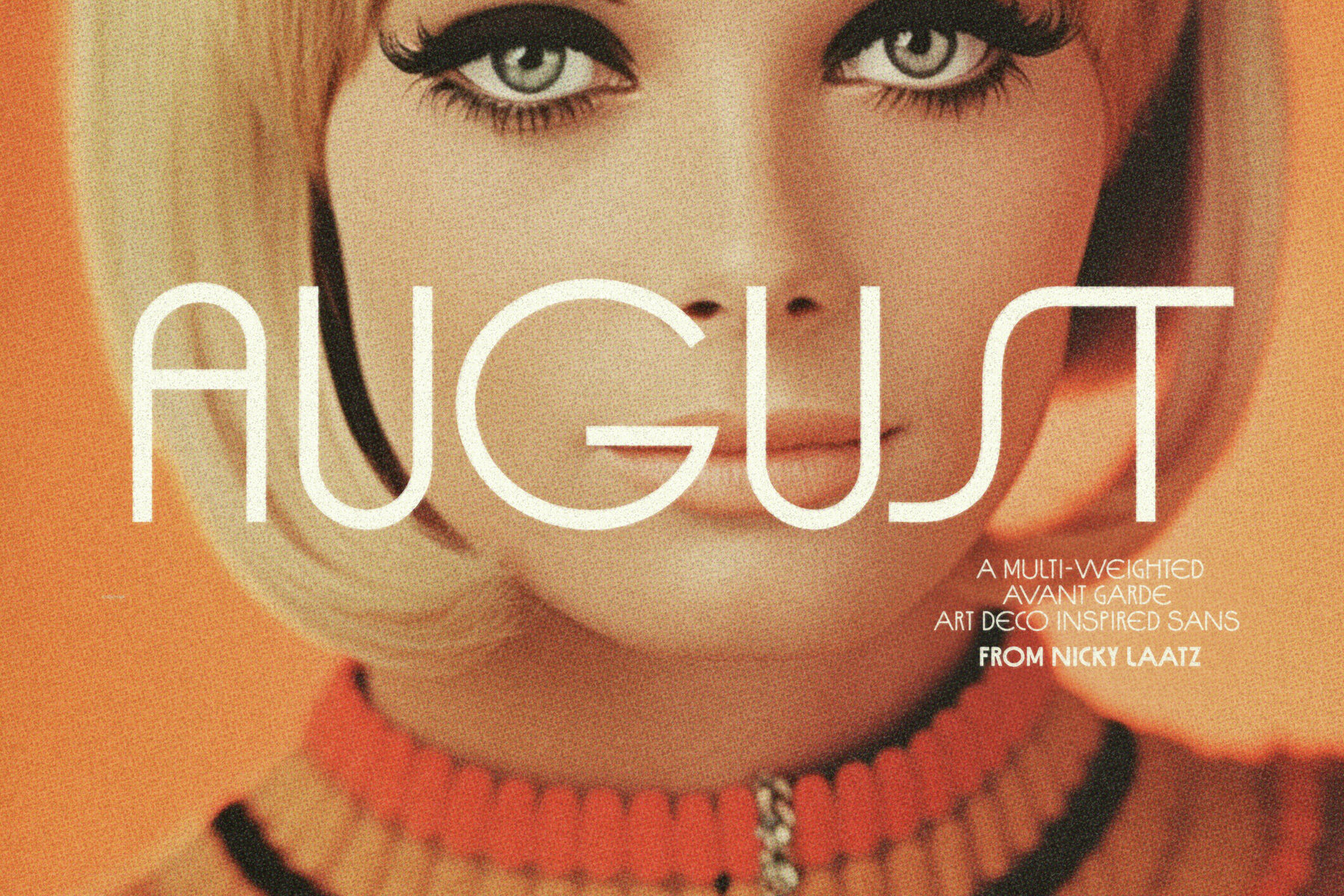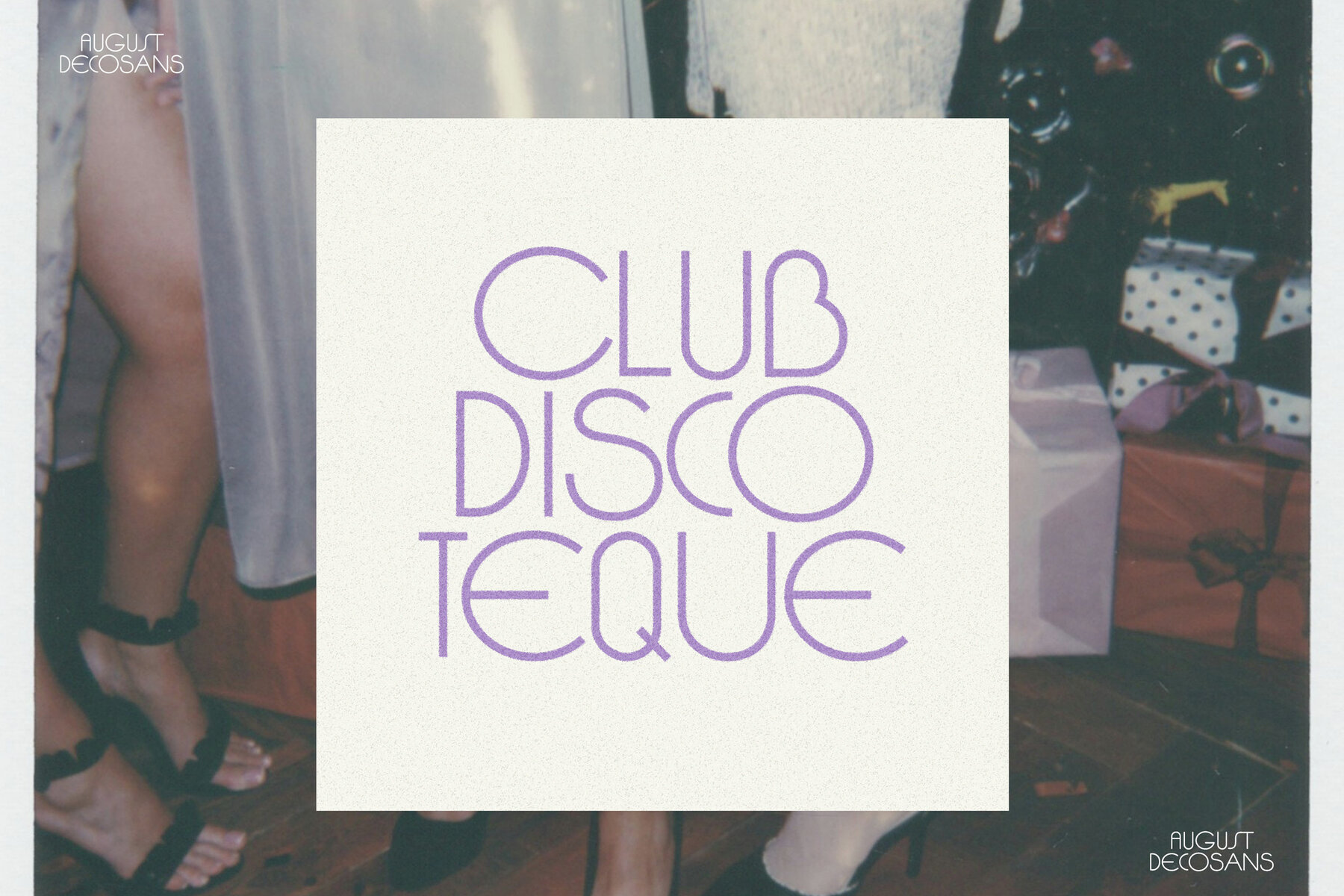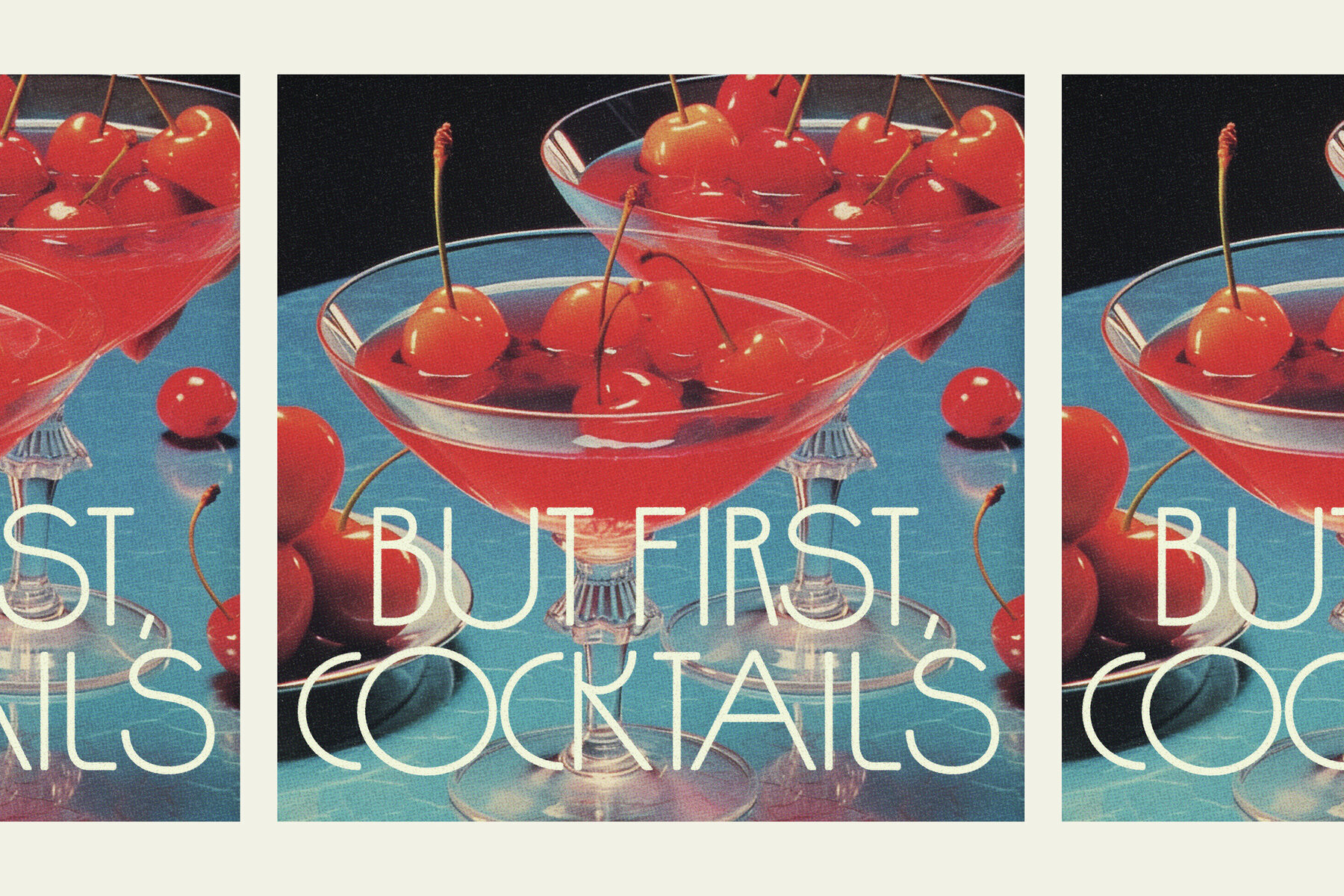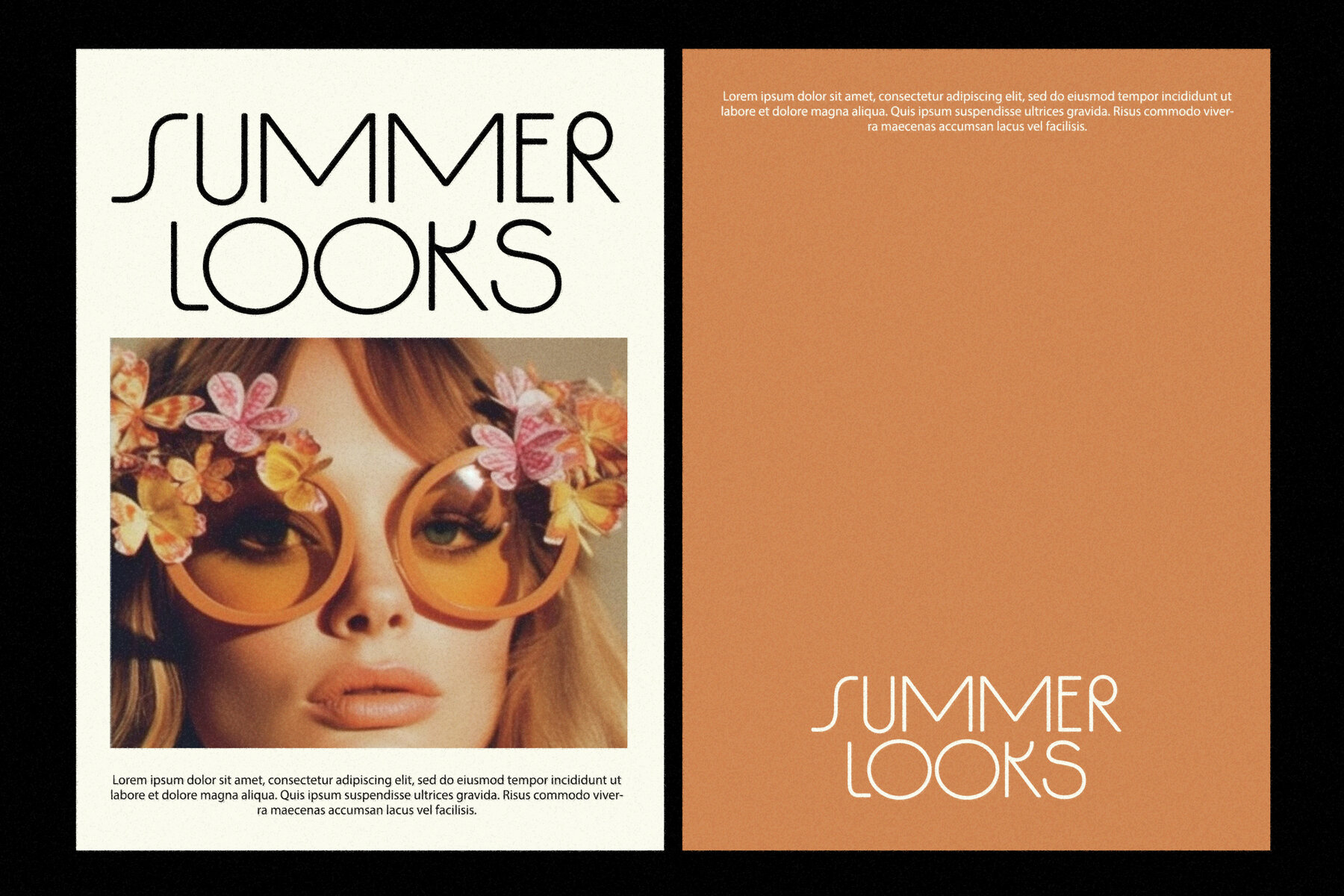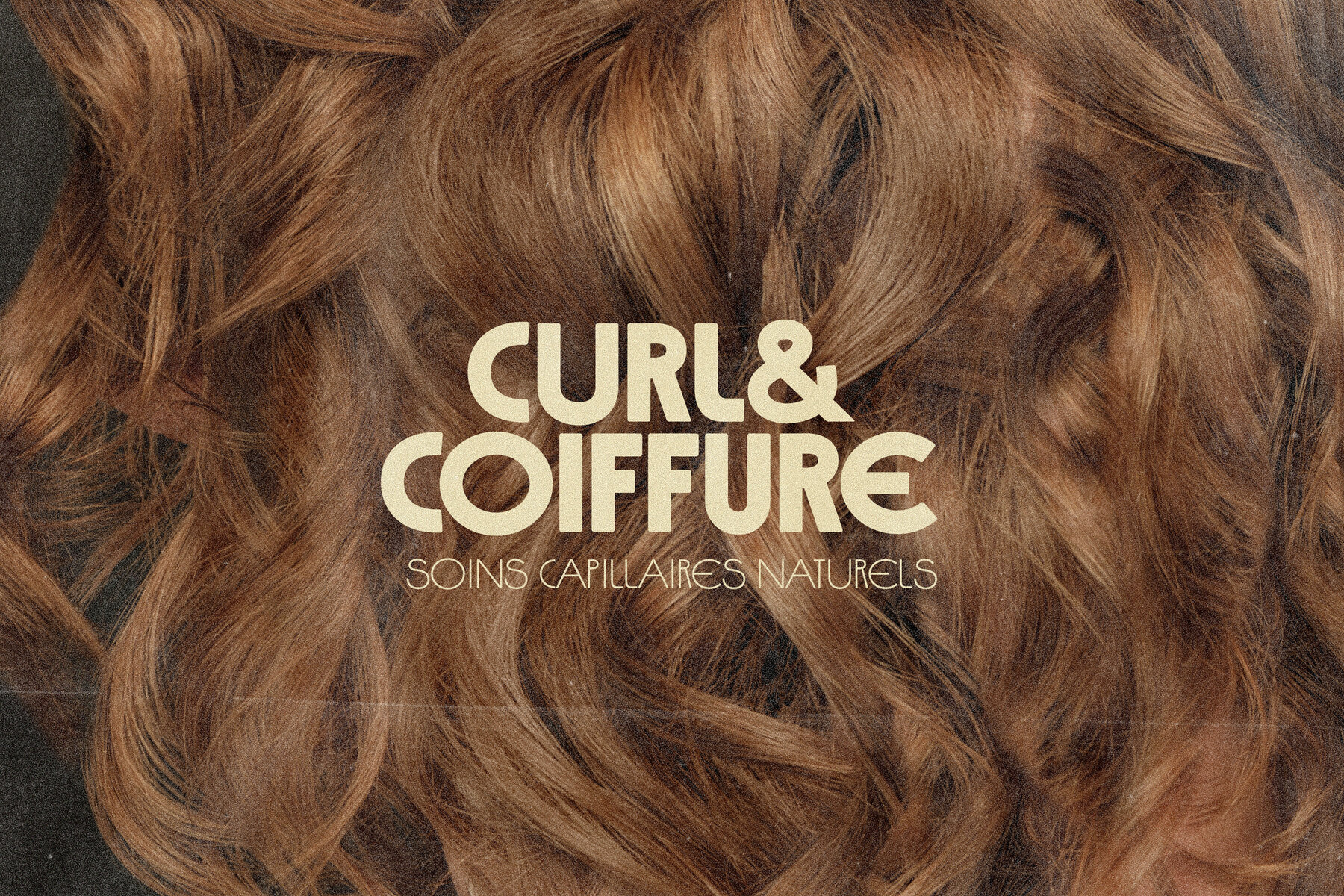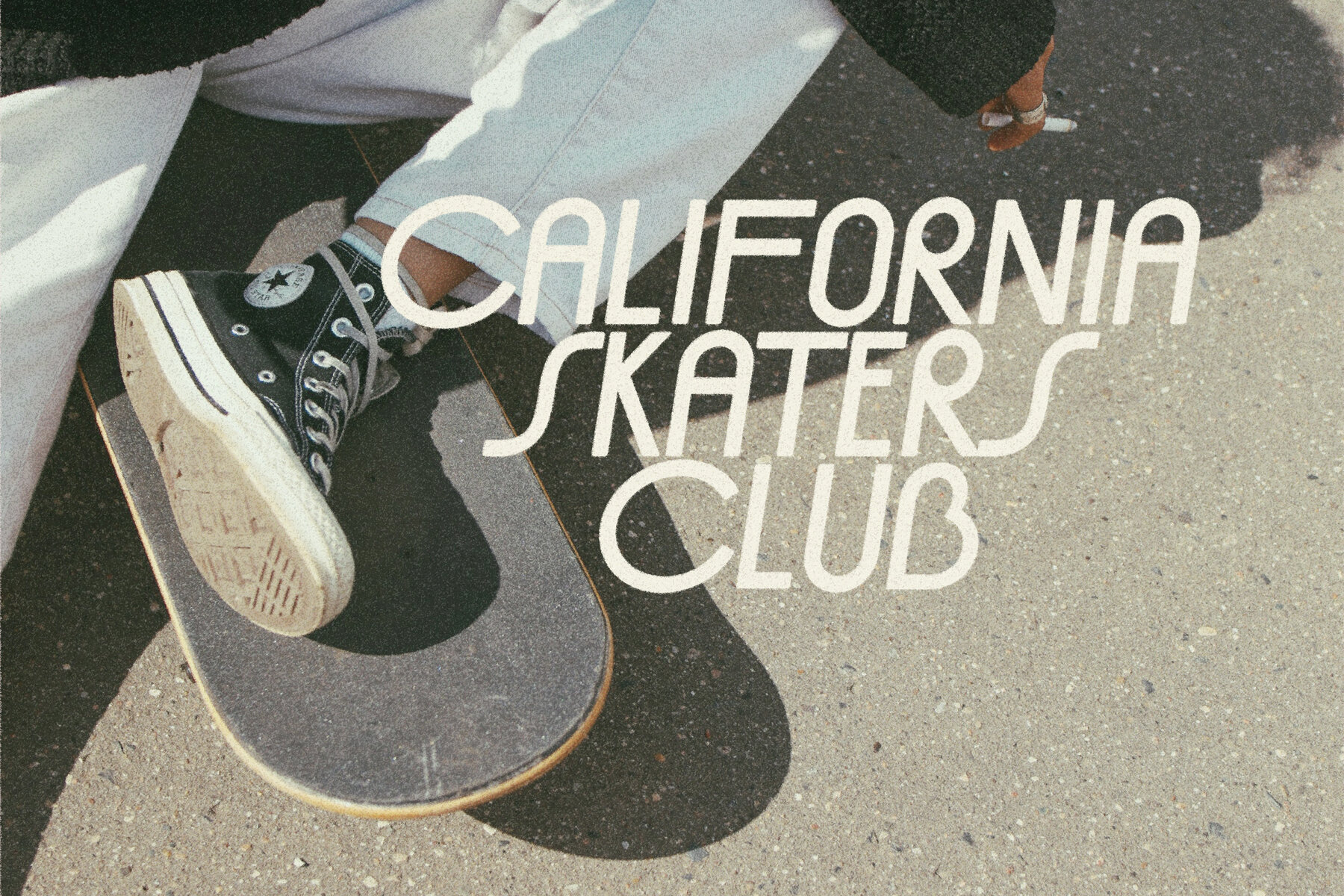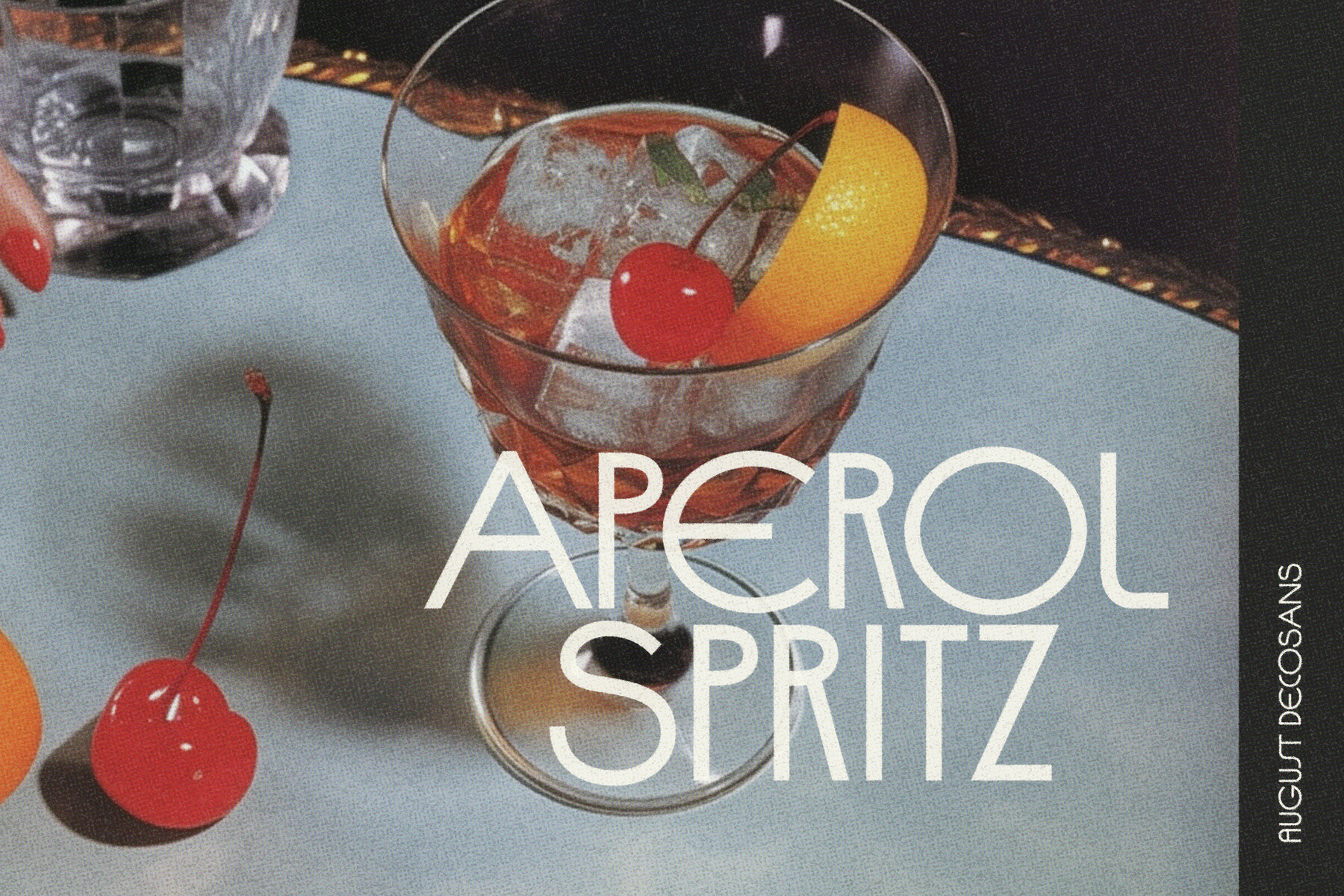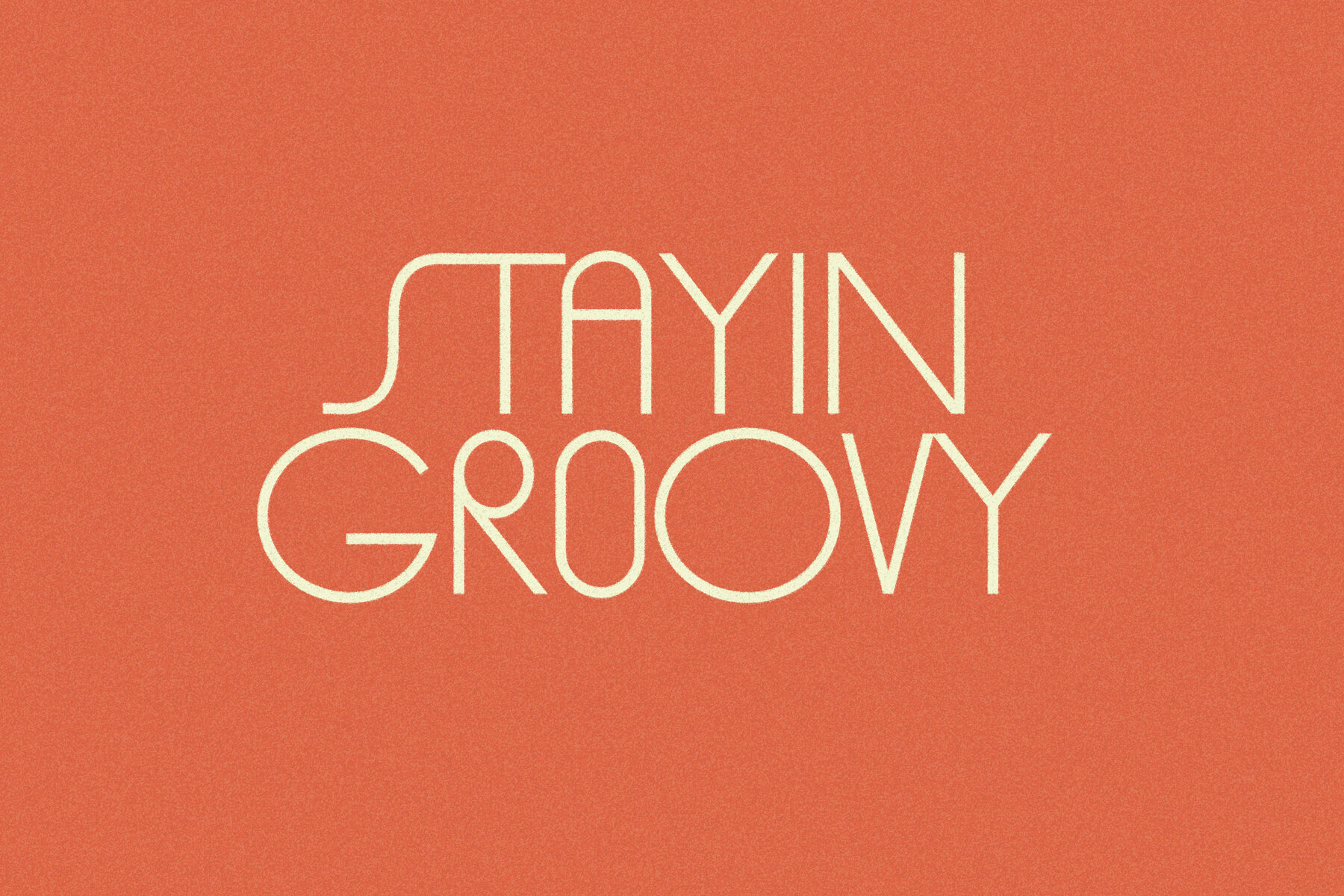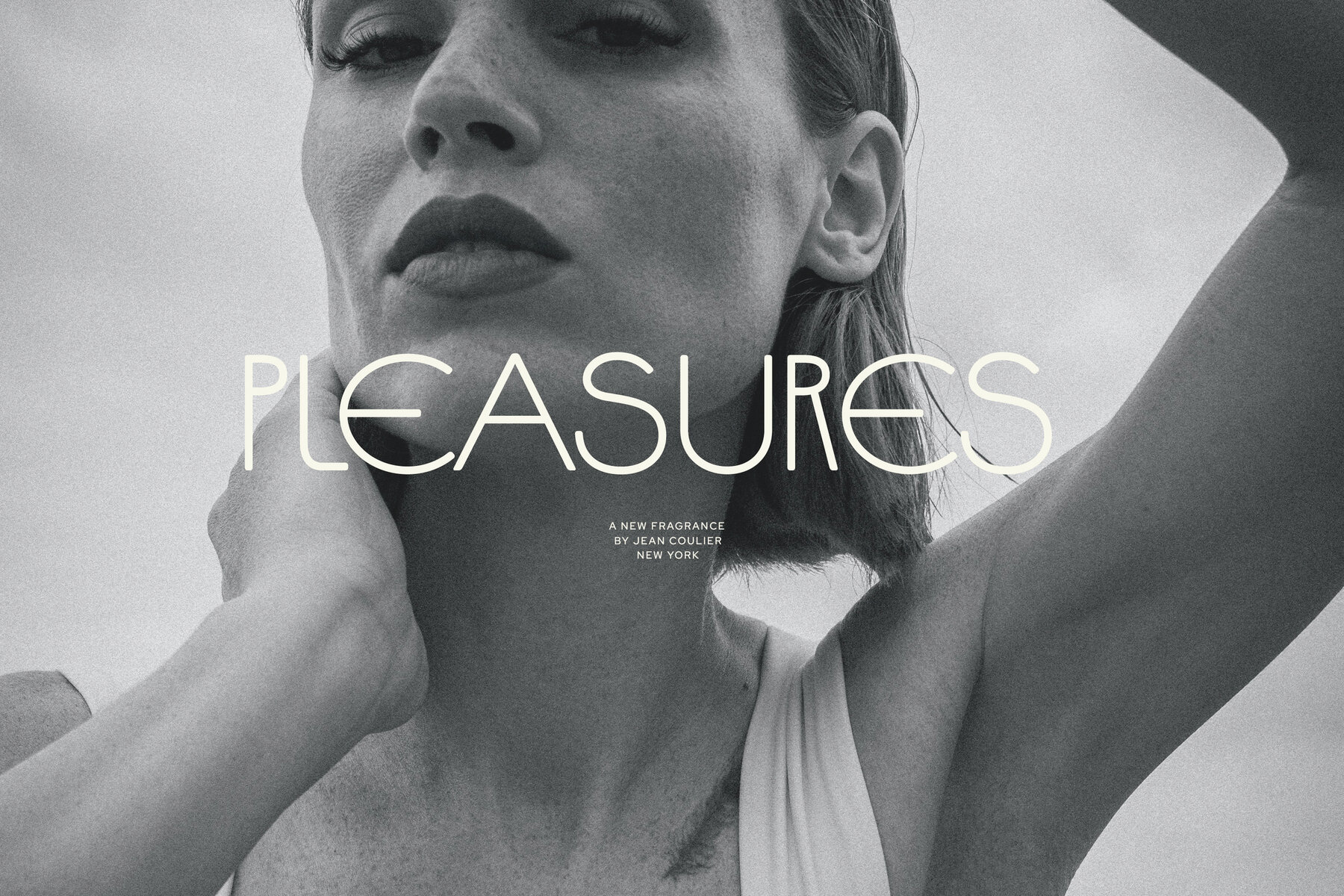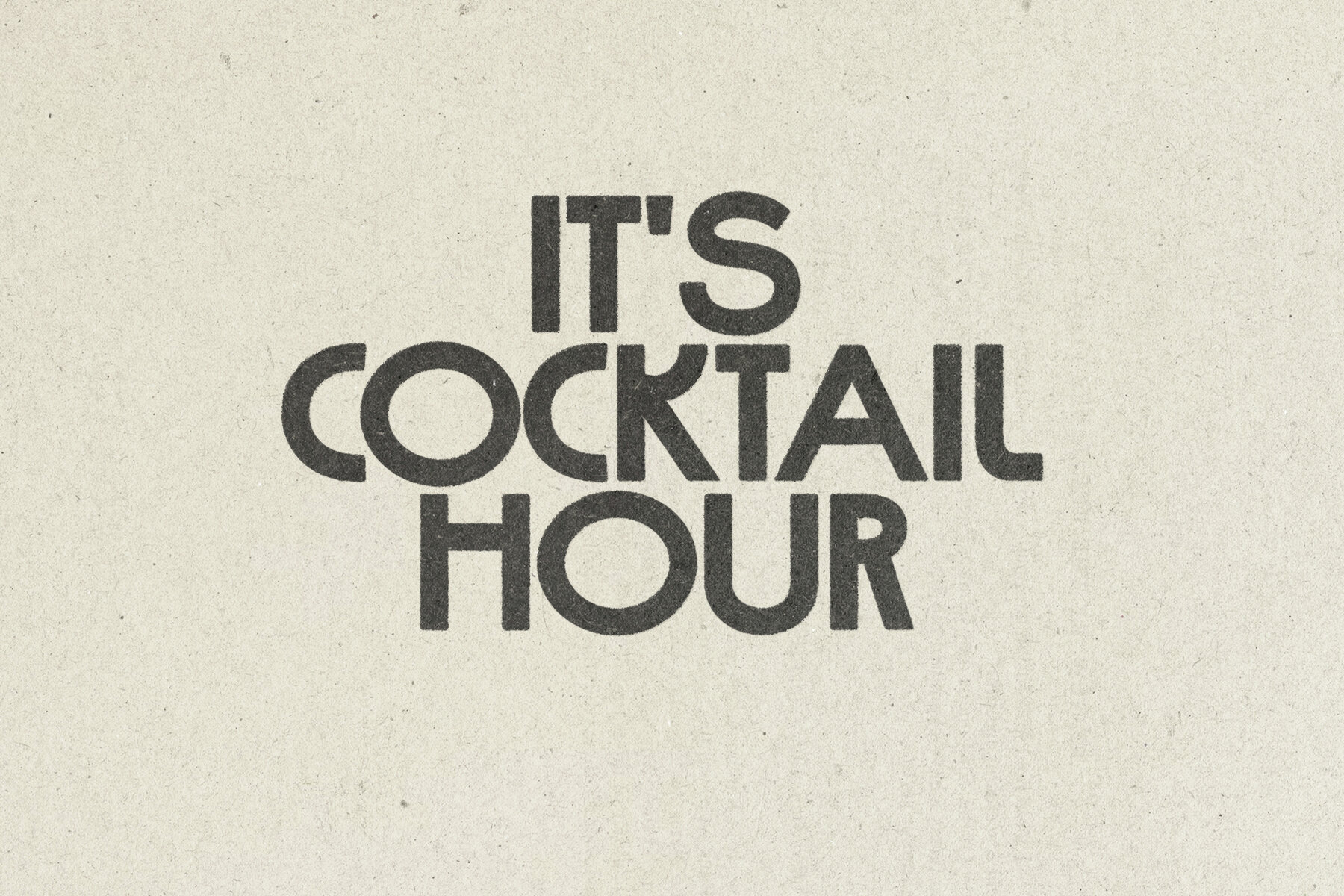
August Deco Sans Font
Designed by the meticulous and talented Nicky Laatz, August Deco Sans is much more than just a typeface. In fact, it is an enticing amalgamation of elements drawn from different time periods. This typeface uniquely embodies the suave sophistication of the art deco era while simultaneously channeling the laidback flair of the 70s. One can't help but appreciate the mesmerizing blend of periods that this special typeface encapsulates. Nicky Laatz has ingeniously engineered August Deco Sans to cater to the needs of modern graphic designers and marketing firms. As a multi-weight type family, it offers versatility in application and appearance, making it ideal for a variety of projects. Whether you are aiming for a stylishly sleek website banner or designing an eye-catching promotional flyer, August Deco Sans is the typeface you’d want to default to for an impression that is both indelible and phenomenal. Features of August Deco Sans:Introducing August Deco Sans: A Fusion of Decadence and Cool